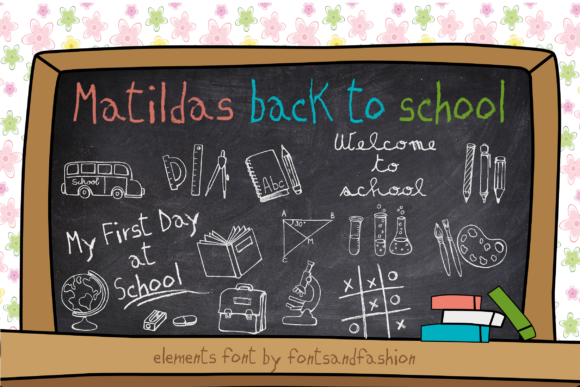
Matildas Back to School Font
Step into the enchanting world of Matildas Back to School Font, a whimsical and playful dingbats font family that brings the magic of school days right to your fingertips. Bursting with an array of charming school elements and symbols, this font is the ultimate pick for projects that radiate a scholastic spirit.
With meticulous detailing and a touch of whimsy, Matildas Back to School Font captures the essence of school life, transforming your designs into vibrant expressions of learning and fun. From adorable school supplies to playful animals and cheerful mascots, every character in this font is a creative delight.
Unleash your imagination and let Matildas Back to School Font transform your projects into captivating works of art. Craft stunning posters that ignite excitement for the new school year, create personalized notebooks that inspire creativity, or design invitations that capture the joy of school events. The possibilities are boundless!
But what truly sets Matildas Back to School Font apart is its versatility. Seamlessly blend it with other fonts to create eye-catching headlines, compelling call-to-actions, or informative text. Its playful nature effortlessly complements a wide range of design styles, making it the perfect choice for both playful and professional projects.
And let's not forget the endless possibilities for personalization. With Matildas Back to School Font, your designs will radiate your unique style and personality. Playfully mix and match characters to create custom logos, monograms, or personalized gifts that leave a lasting impression.